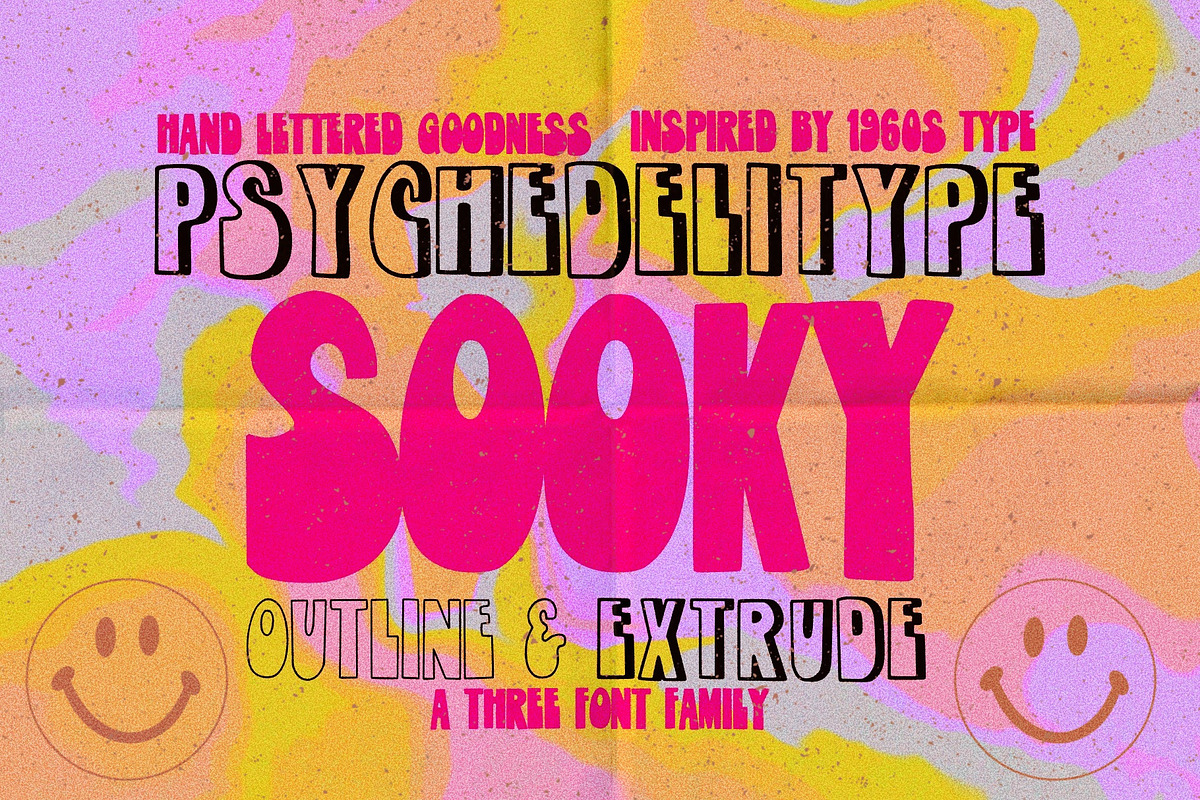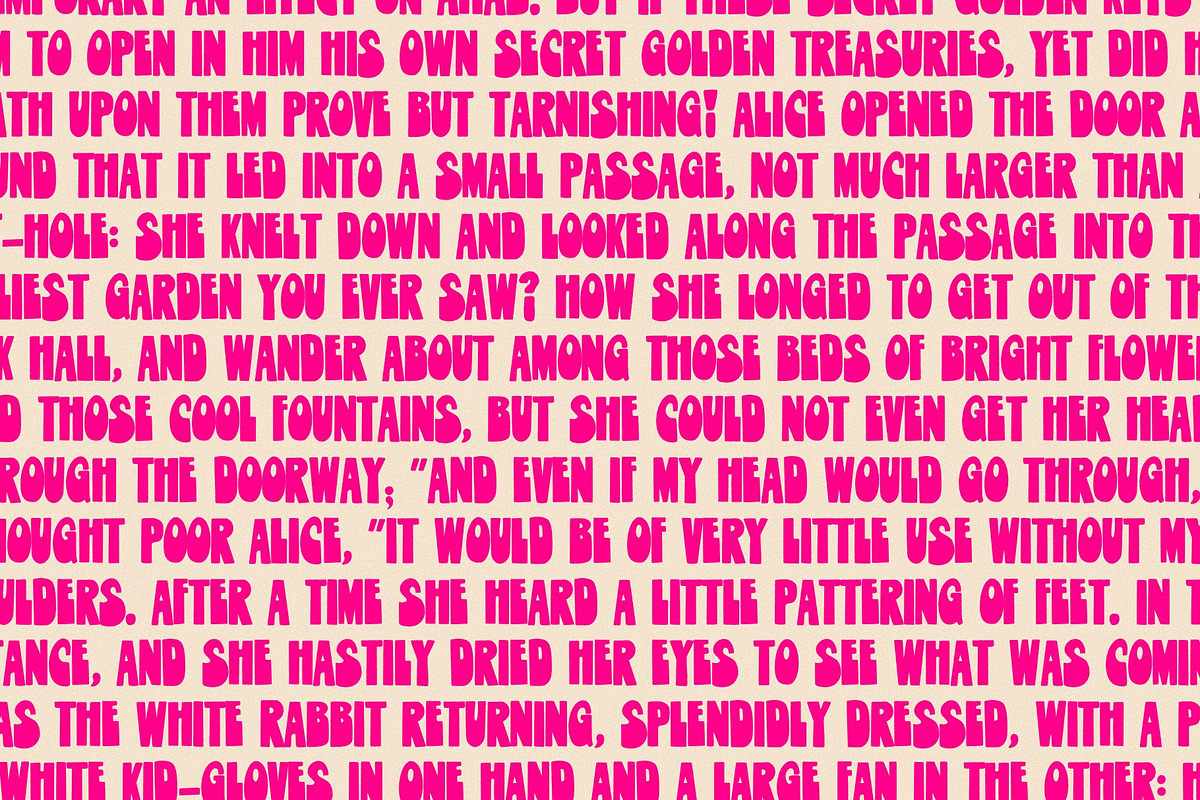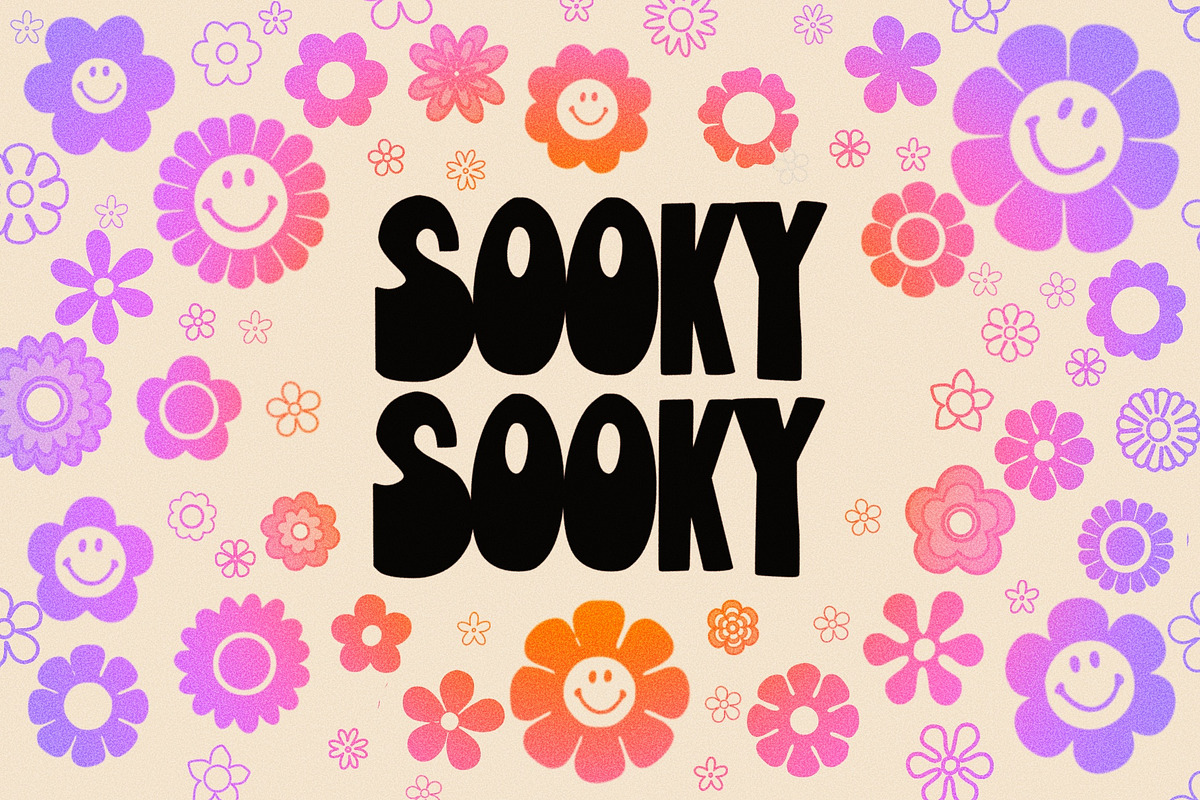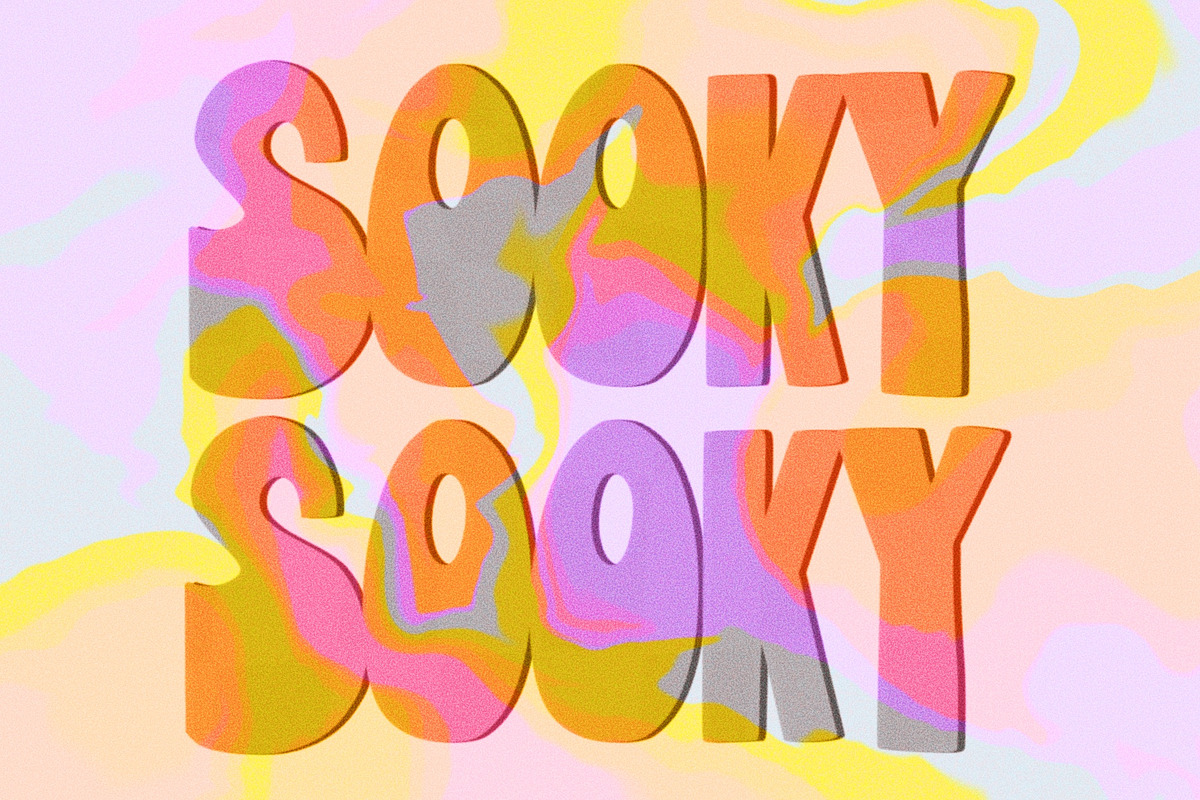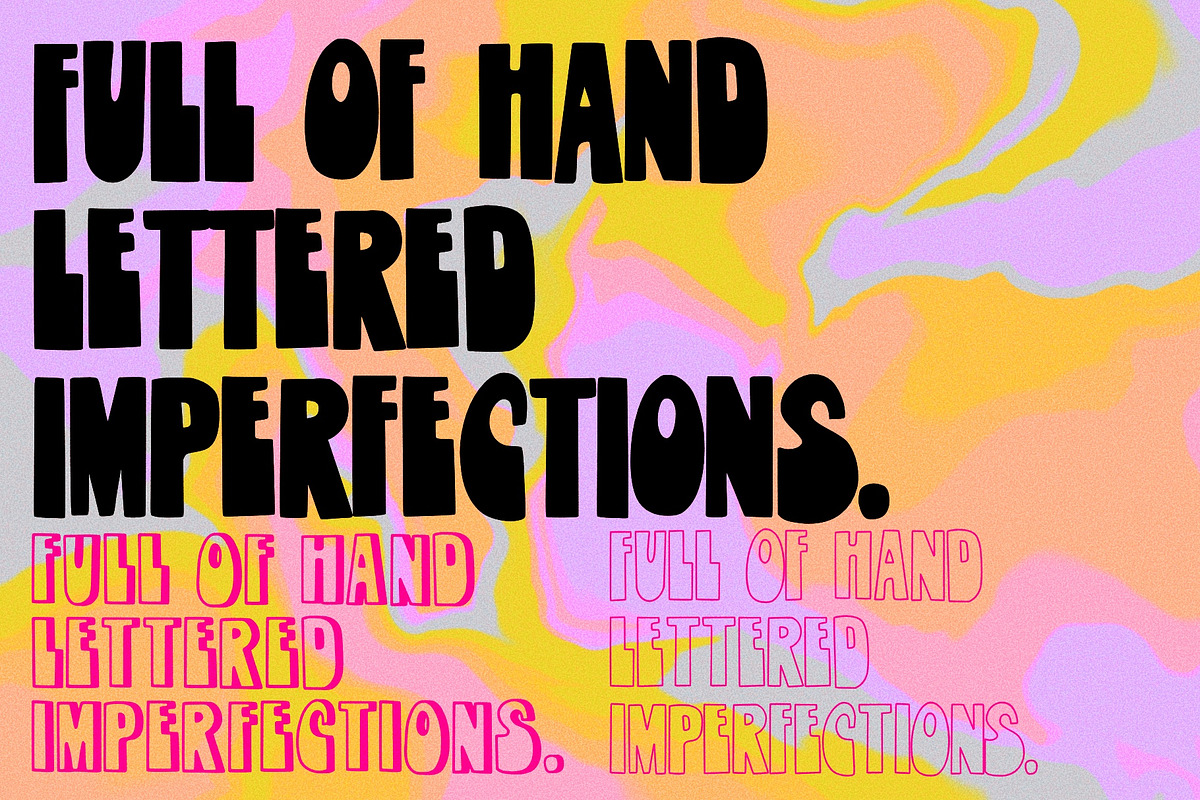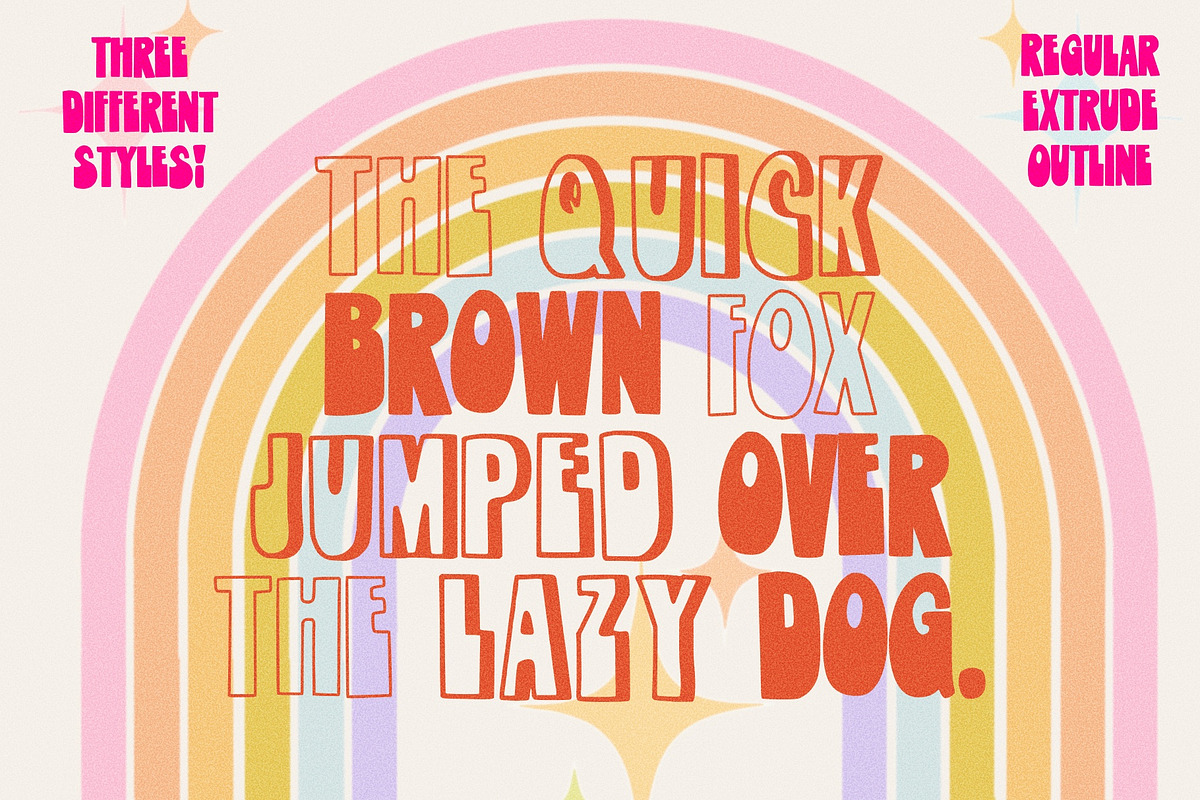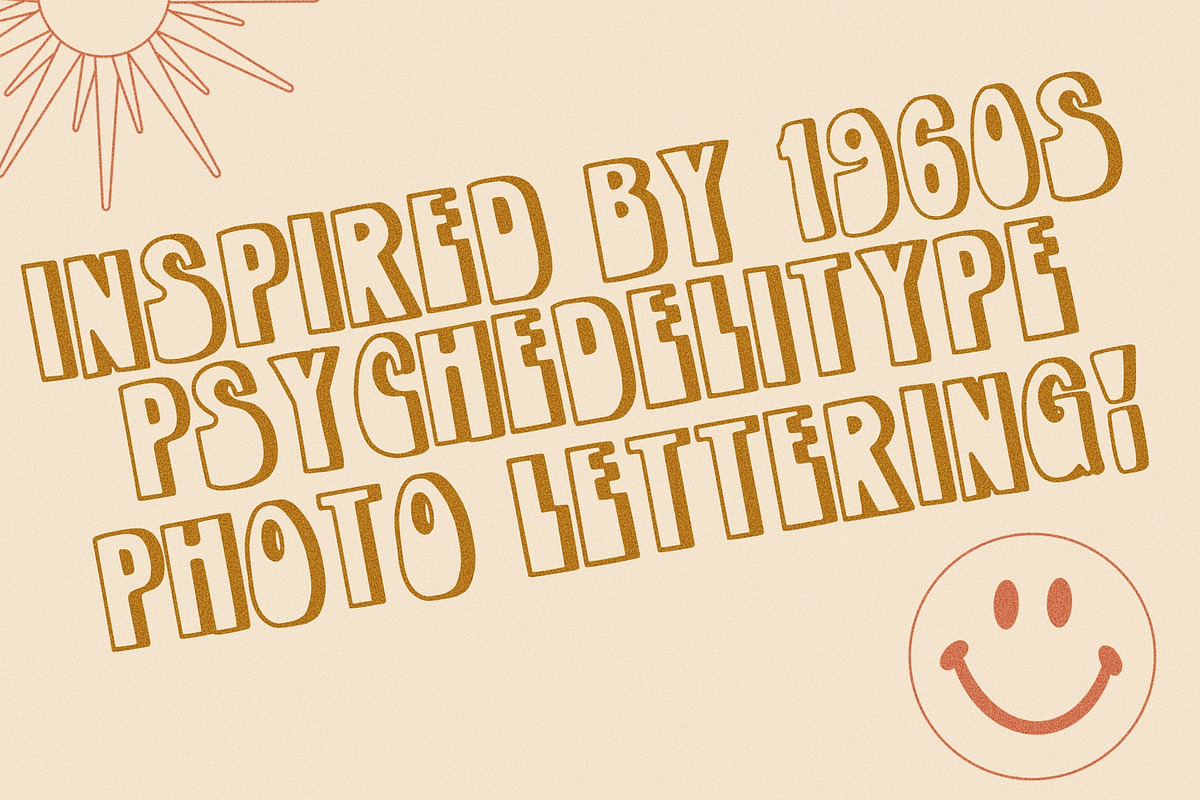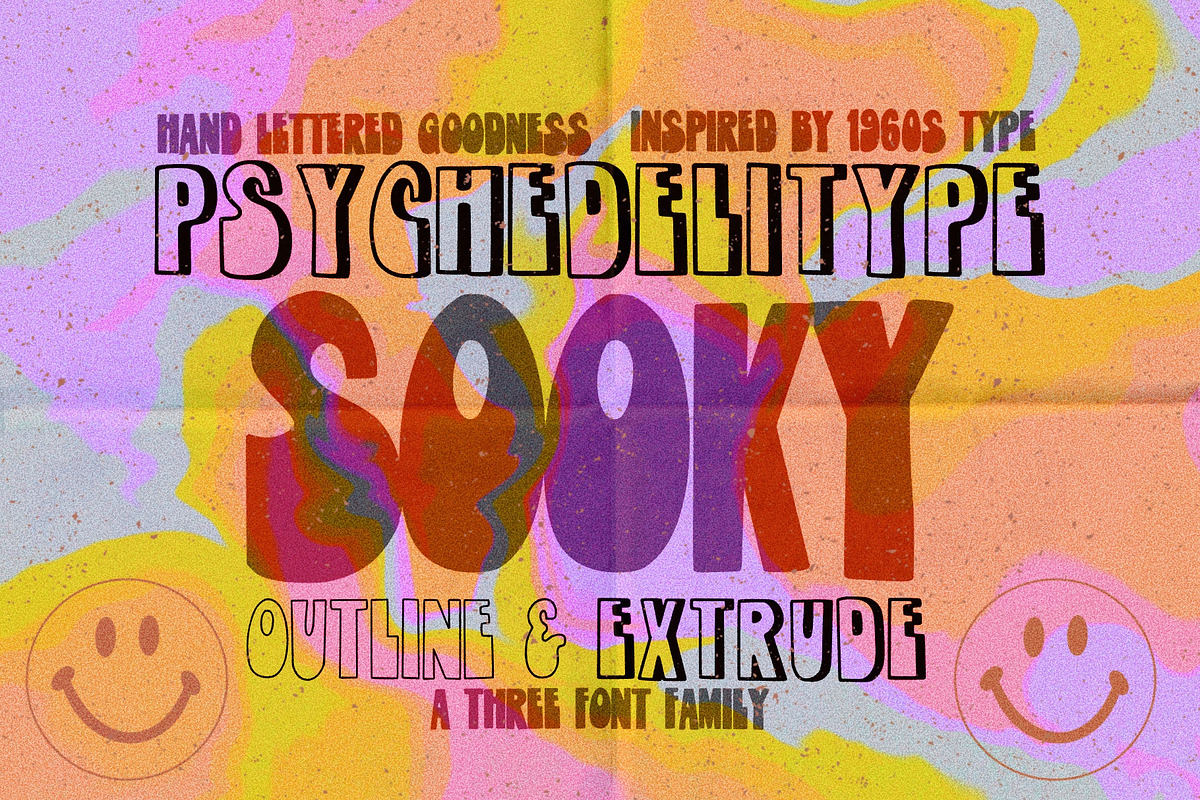
Psychedelitype Sooky - 3 font family
Welcome to the Sooky font family! This font was hand lettered inspired by 1960s psychedelitype 5788 from the photo lettering book! I love looking at photo lettering from this era when lettering a new font. This font is perfect for display and body. I’ve shown examples of both in the listing photos. Bring those 60s vibes into your work with this font family pulled straight out of the psychedelic age. ✨
🧡This family includes the regular Sooky font, outline and extrude. All fonts have extended punctuation!